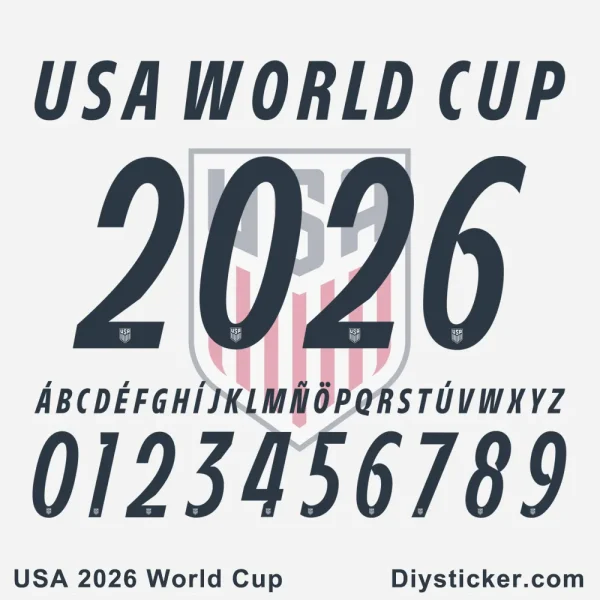
Get the official-style USA 2026 World Cup Font for your design projects. This premium digital toolkit includes high-quality vector numbers and letters compatible with all major design software. Perfect for custom jerseys, fan gear, and sports branding.
Elevate your sports designs with the USA 2026 World Cup Font Vector Download. As the world prepares for the 2026 tournament, this font captures the modern, dynamic spirit of American soccer.